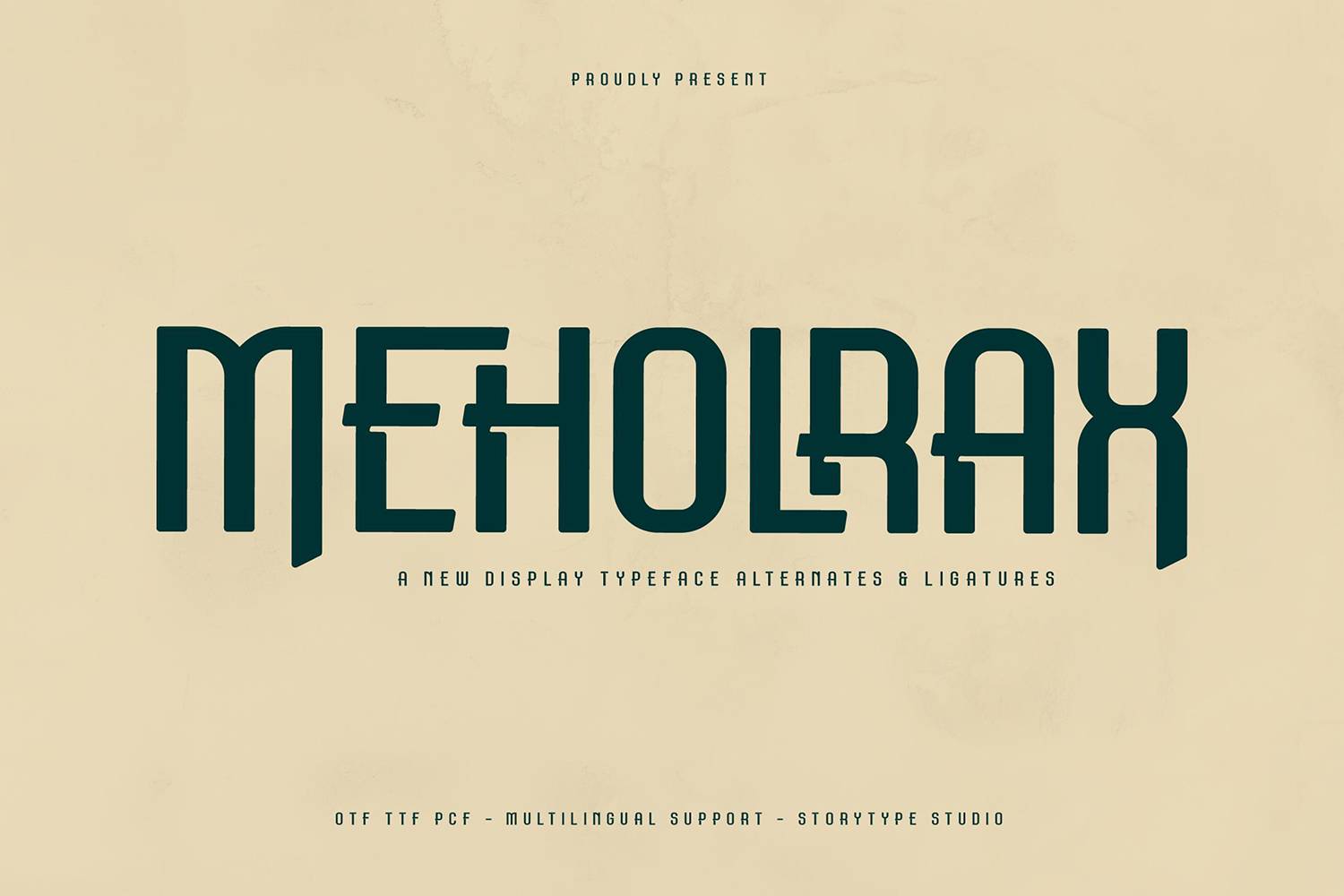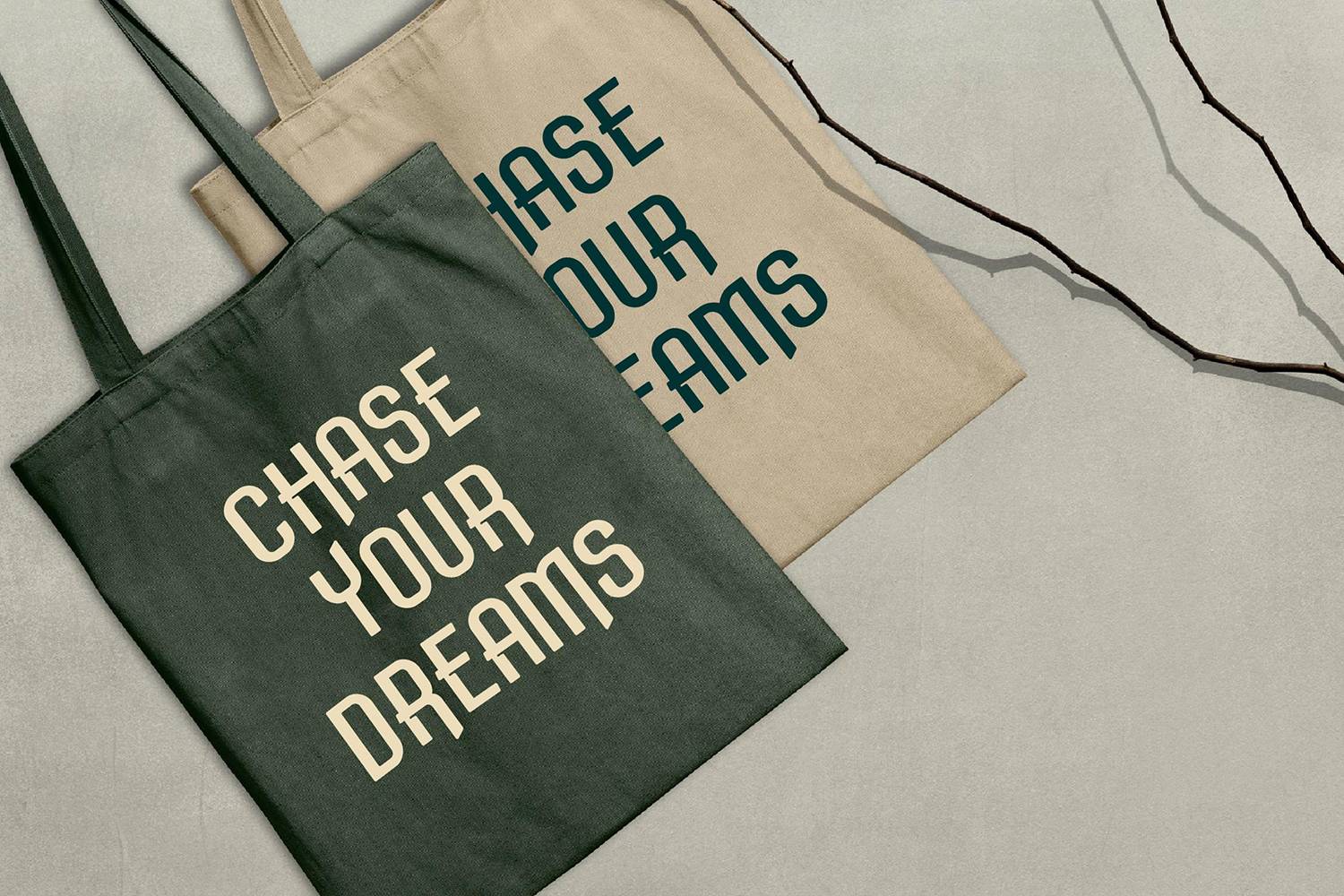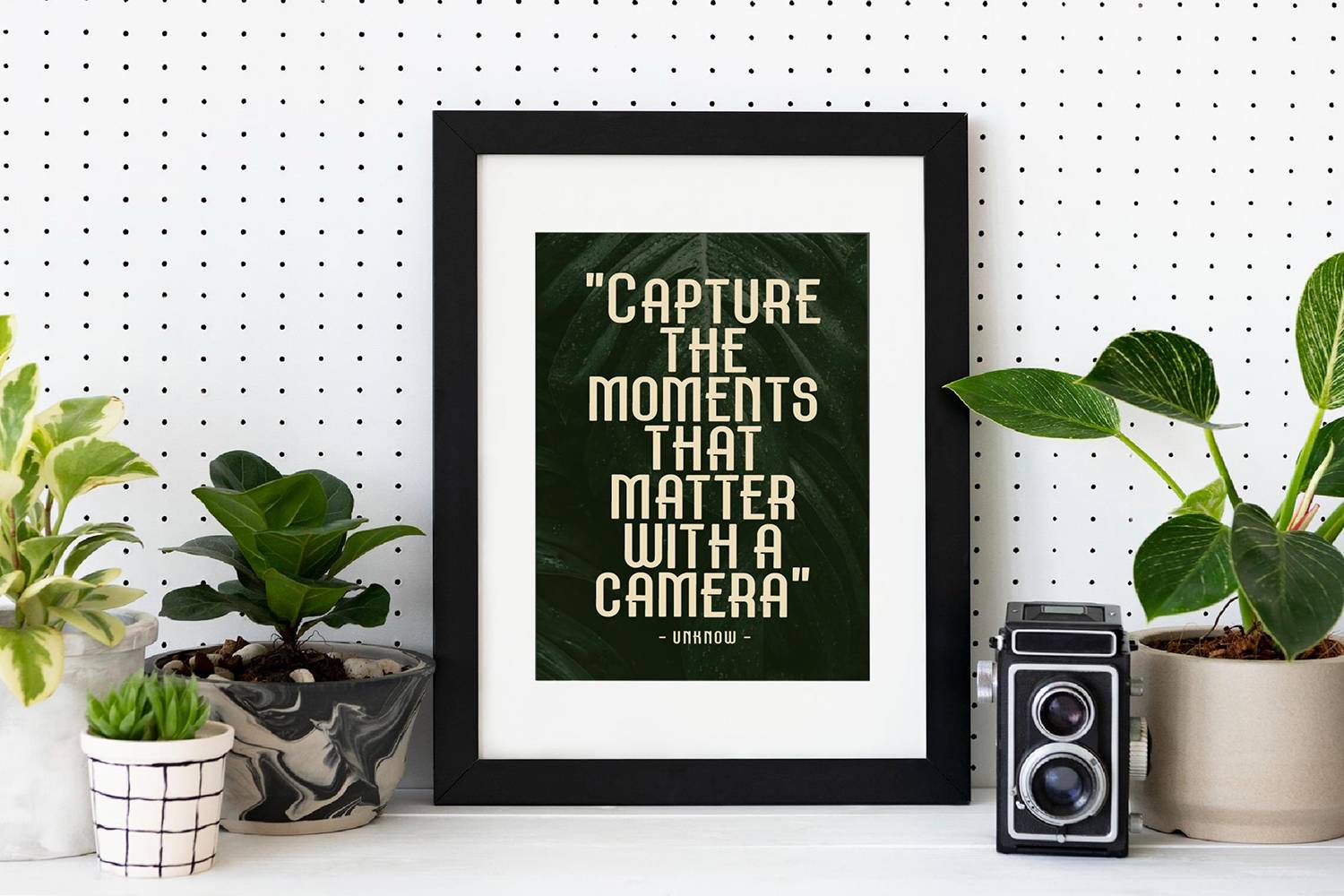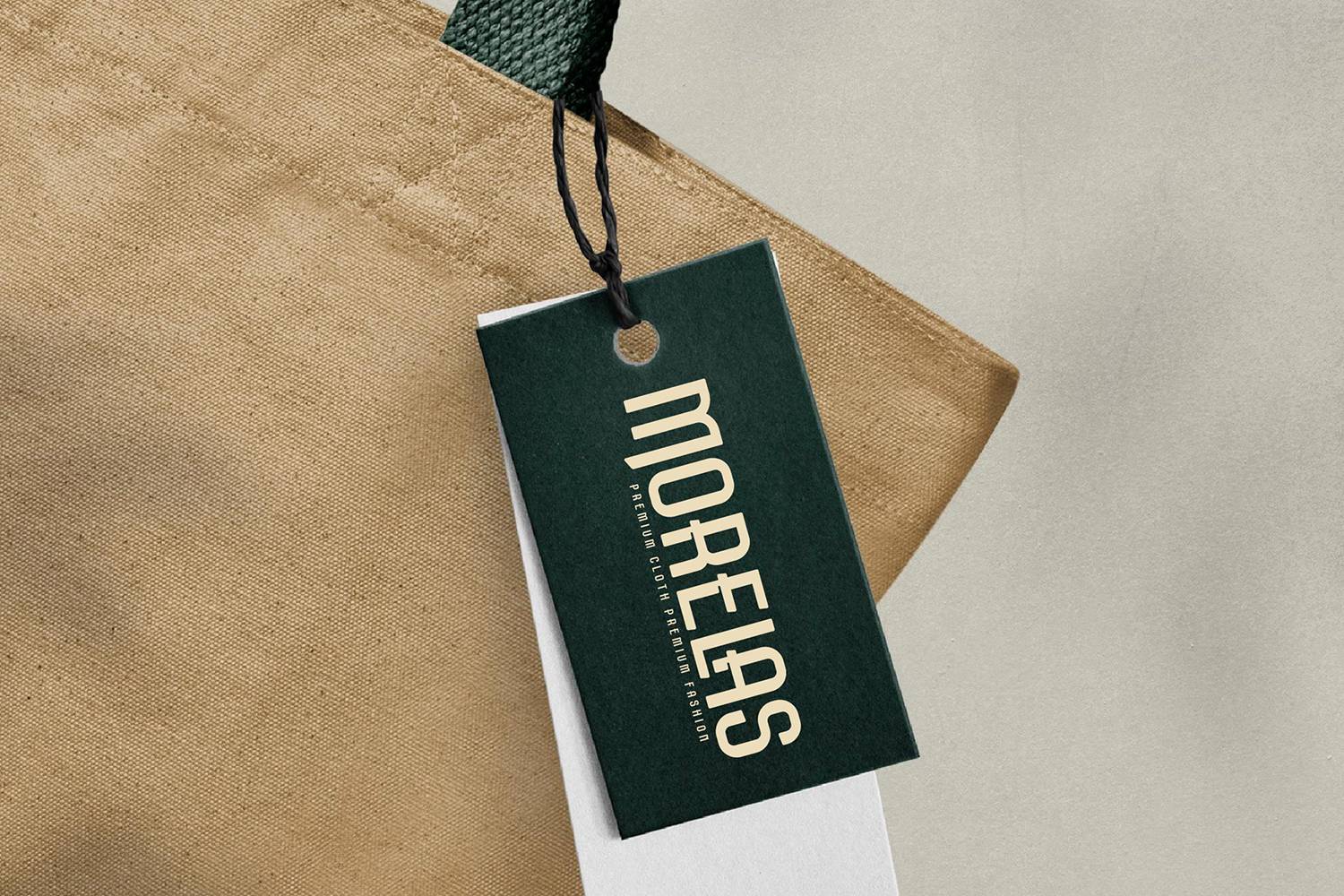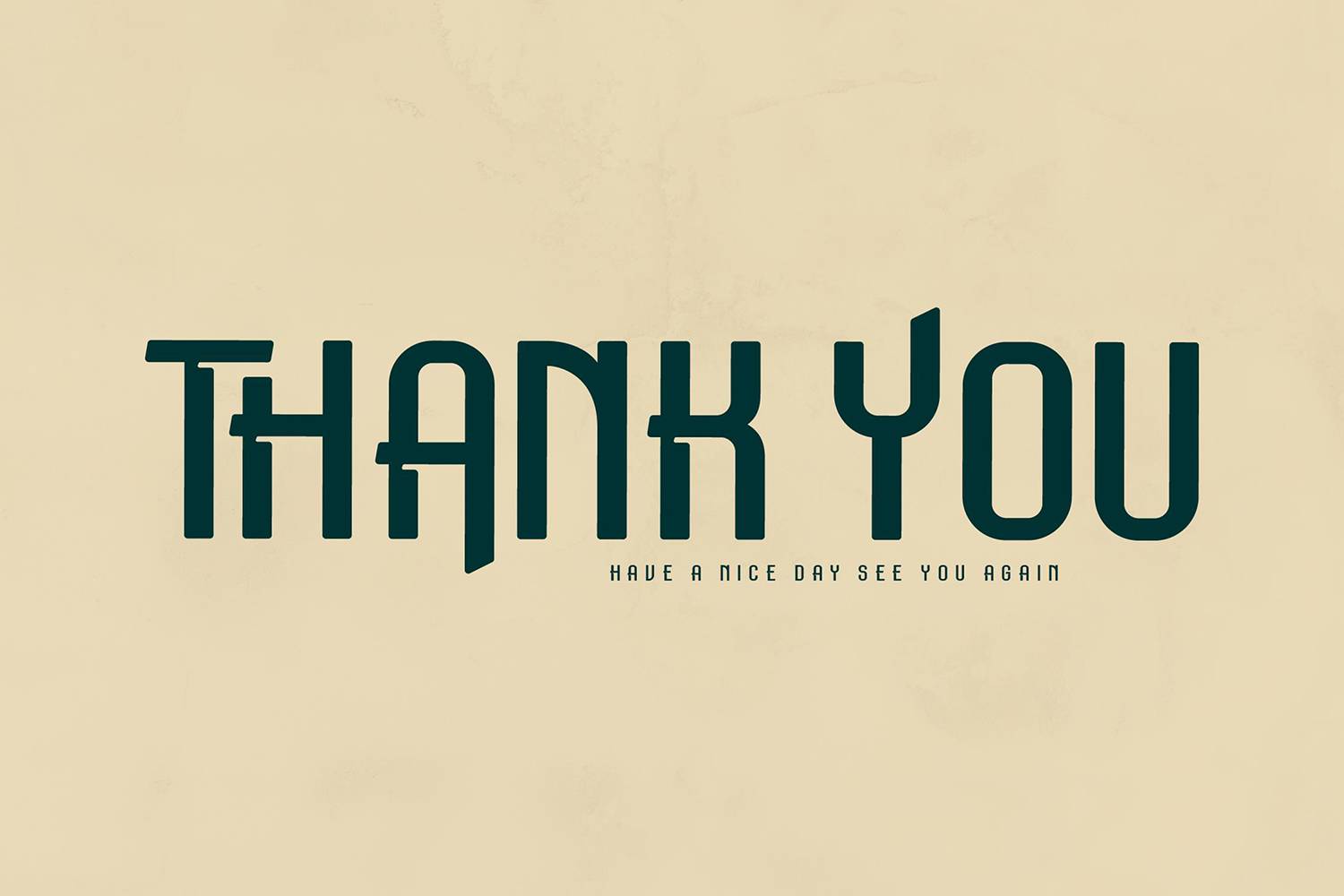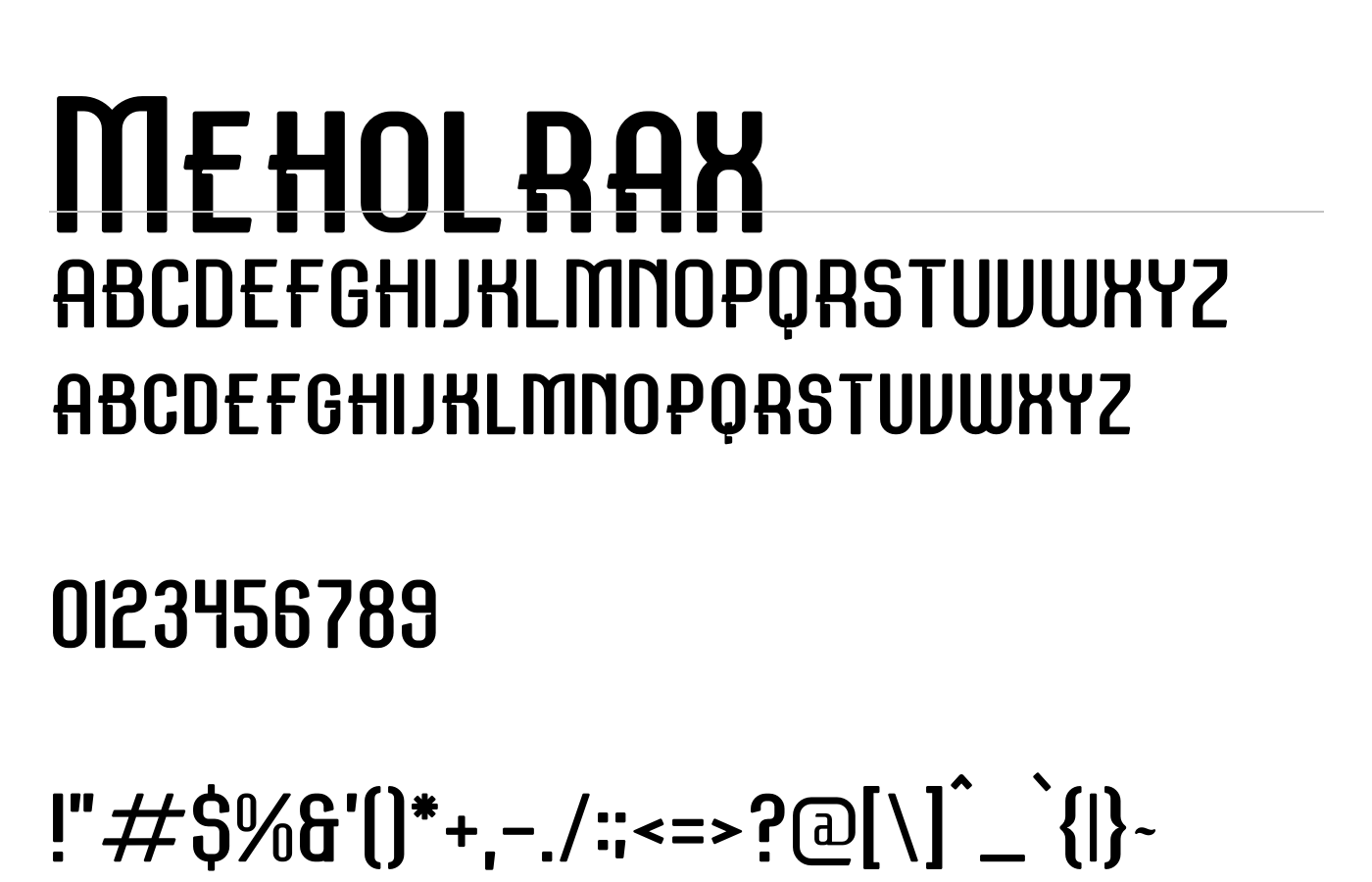
Meholrax is a condensed sans serif font with a tall, narrow structure and clean, geometric lines that create a modern, industrial feel. Its consistent stroke weight and sharp corners give it a strong, technical presence, making it ideal for bold headlines, logos, and branding that require a futuristic or tech-savvy look. This font works well in designs where space is limited but impact is needed, such as posters, packaging, and digital interfaces.
Meholrax Font
About Meholrax Font